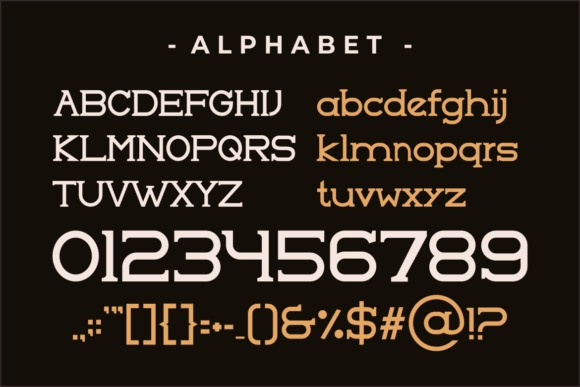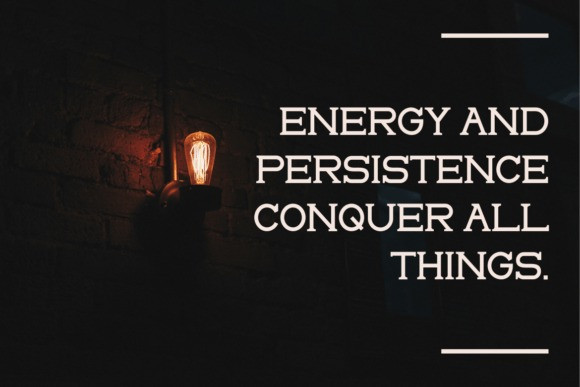
Eleonore Font
Eleonore Font is a modern and stylish serif font. No matter the topic, this font will be an incredible asset to your fonts’ library, as it has the potential to elevate any creation.